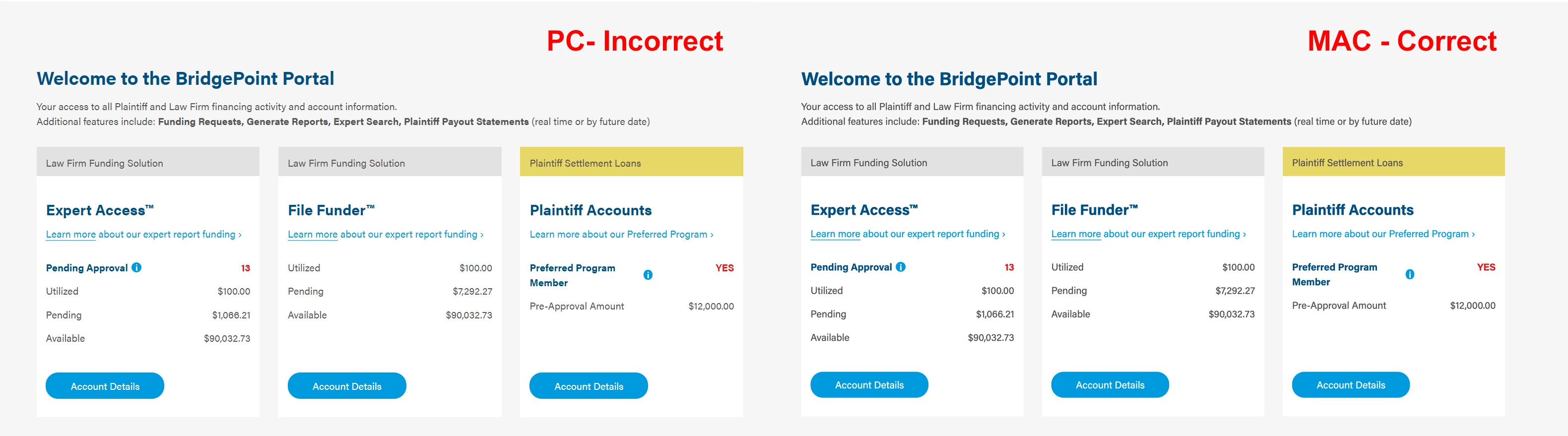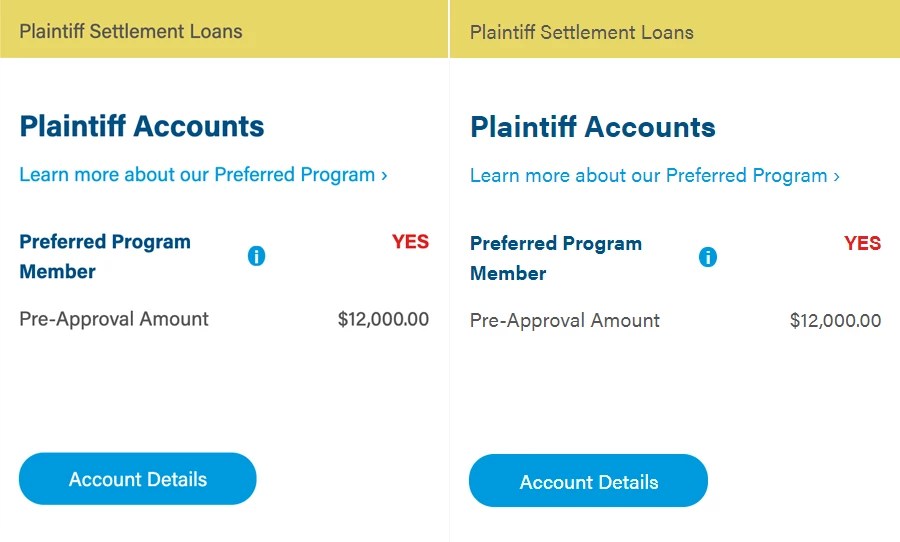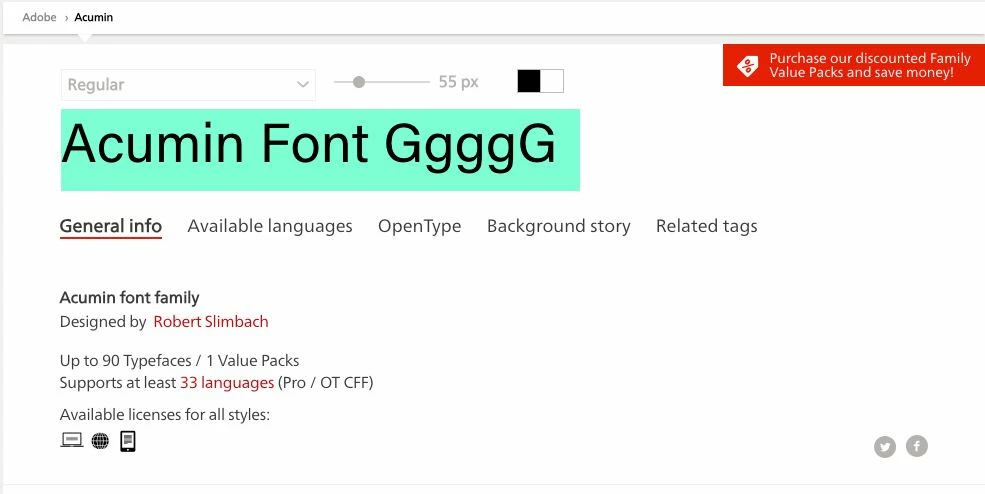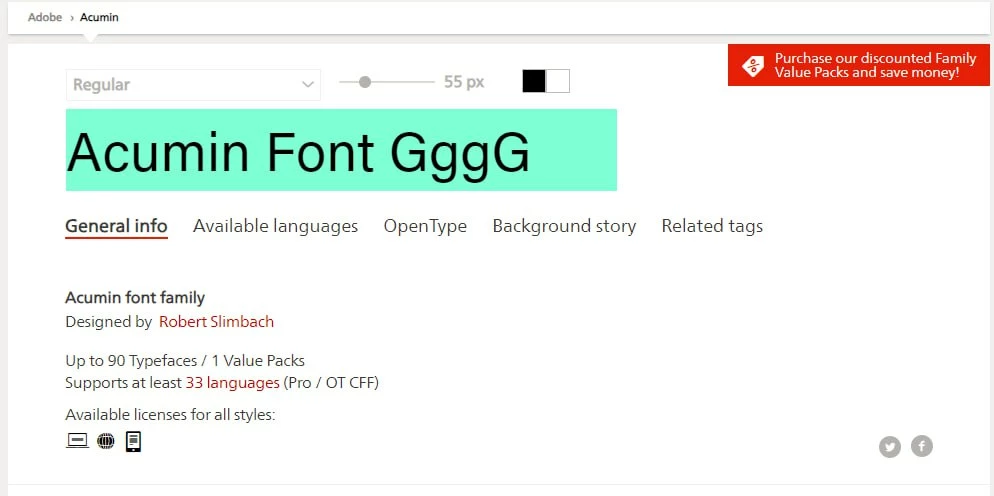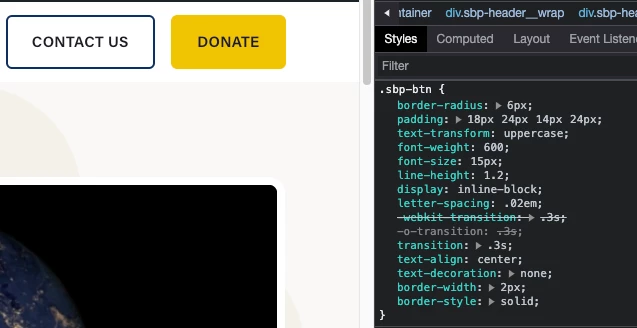
Typekit fonts not rendering properly on PC browsers
I am using Acumin Pro for a website. The font appears correctly on Mac browsers but does not on PC browsers. I have reviewed the community and searched Google but to no avail.
I have faced another cross-OS rendering issue with this font. It has different vertical positioning. On Windows it more offset to bottom. And on macOS more to top. No matter what browser on both OS. I appear on the website that I'm developing and on a randomly found font website.
The first one is macOS, the second one - Windows.
Background color has directly H1 tag.
So, if you have some rectangle, like a button, and it has equal top/bottom paddings it will be look different on macOS and Windows.
Here is an example of issue on my website. Same styles, but different look.
MacOS:
And Windows:
Kind request, do not write that you can't see difference)
There is clearly a problem with this typeface from Adobe. There is an obvious difference between how the font is rendered in XD and in the browser on the same OS. In this case, Windows 11.
See the screenshot below. Both Acumin Pro, bold, 20px. Left is in chrome, and right in XD. (Both at 100% zoom levels)
As a web developer myself, I do sweat the small stuff - and when receiving a design file to work from, from a designer, I want to do the best I can for the client to get the final product matching the design.
My team has noticed the same issues with Acumin Pro on Windows browsers. The issues are most noticeable when using smaller (<= 20px), bold text.
Here is an example that has especially poor legibility on Windows. This text is using Acumin Pro 14px bold (Firefox browser):
Here is the same example on MacOS (Firefox):
Note: On Windows, the numbers 5 and 6, and letter "s" lose whitespace within the character.
See responses above - as a designer I see big differences but as with most Adobe support responses you are either a) wrong or b) they can't see an issue... saves them from addressing it.
What browsers on each platform? And since your examples are rather low resolution and fuzzy-wuzzy, can you please be specific as to the differences you see? Thanks!
If you click on the image in the message, it should enlarge to higher resolution. If that doesn't work for you, I can attached another version.
On PC browsers the font is not appearing as it should. The outlines are chunky and pixelated at all font sizes - points to a rendering issue. Thanks.
Following up on this support post on Acumin Pro not rendering properly on PC browsers.